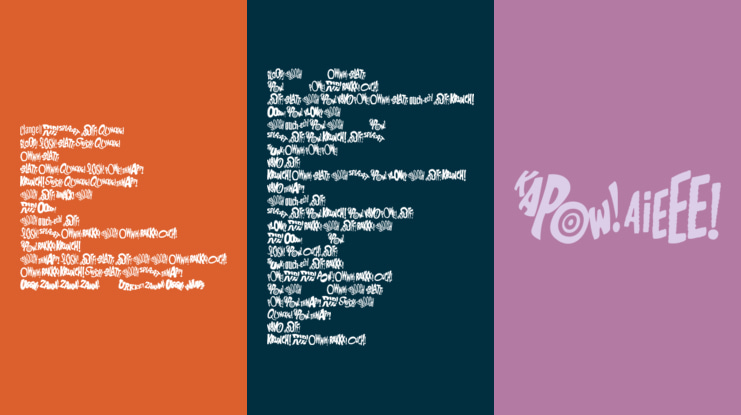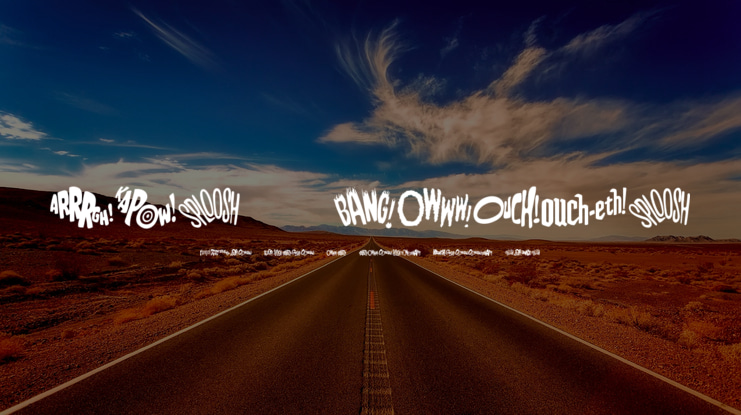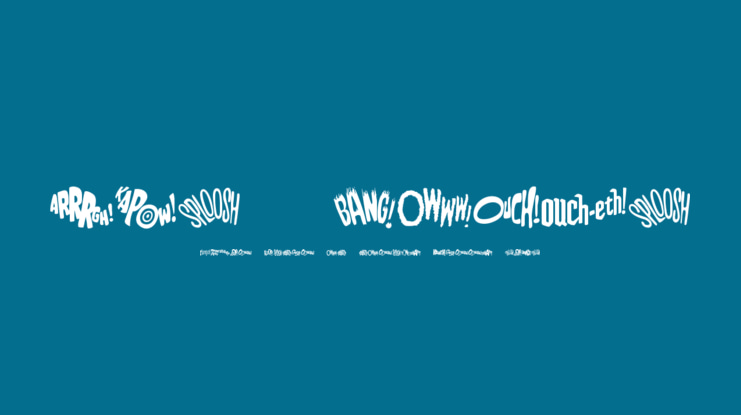
Bat Fight Font
Frank Lawrence
Bat Fight is a collection of 72 Bat Fight words used in the hit 60s TV show Batman, hand traced from the screen using the iPad Pro.